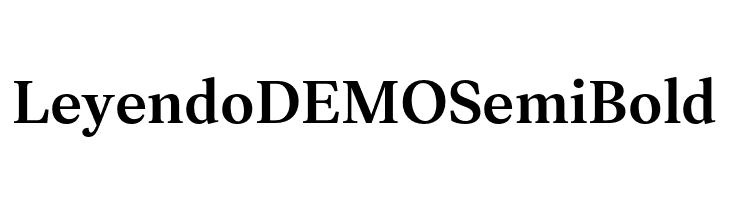
A classic serif font with bold, well-defined characters and sharp serifs.
A semi-bold, italic serif font with a modern and elegant style.
A playful, cursive font with elegant loops and decorative swashes.
A monospaced, italic font with a modern and clean design.
A bold, geometric font with a modern and industrial aesthetic.
A bold, geometric outline font with a modern architectural style.
A geometric, thin-stroked font with a modern and structured design.
A playful, rounded, and extra light font with a modern and minimalist style.
A playful, rounded font with smooth curves and a friendly appearance.